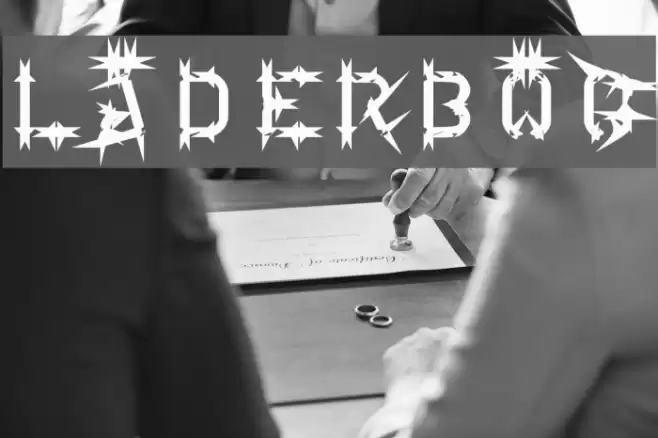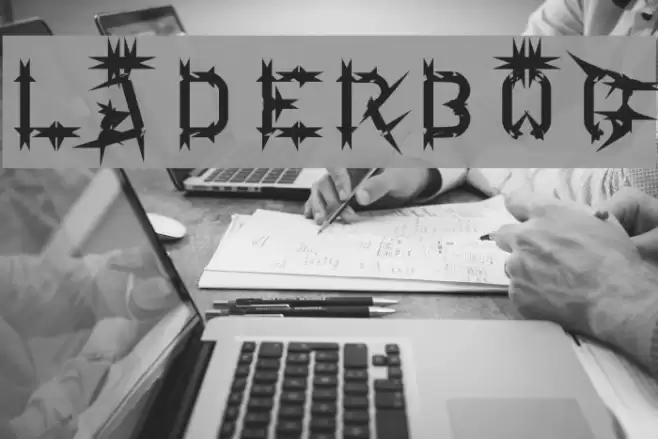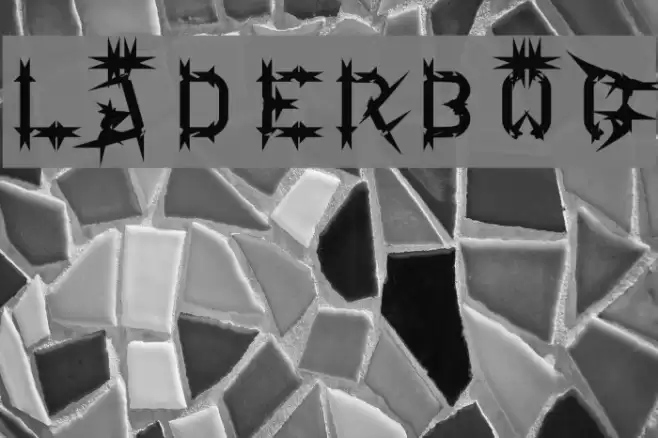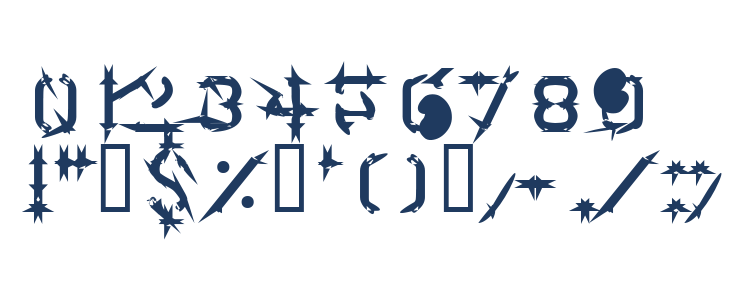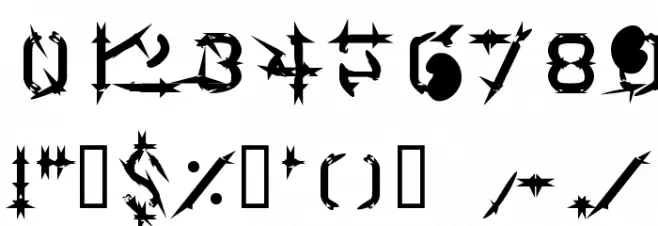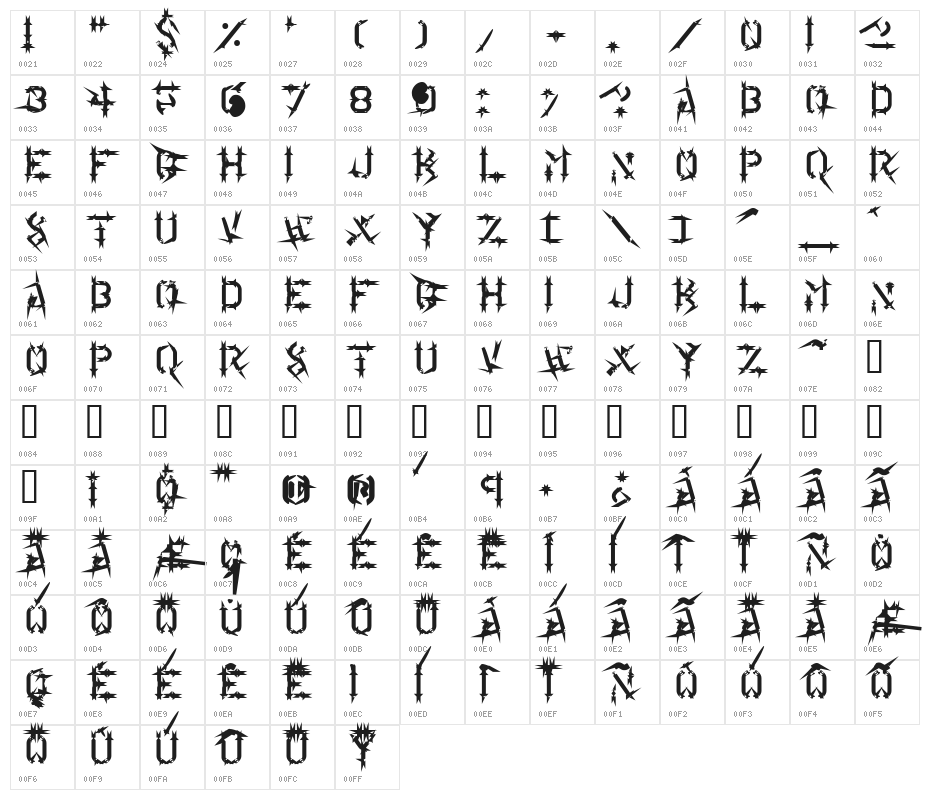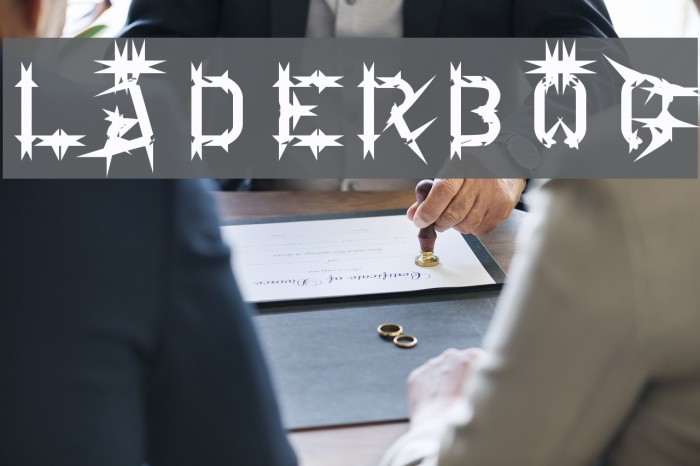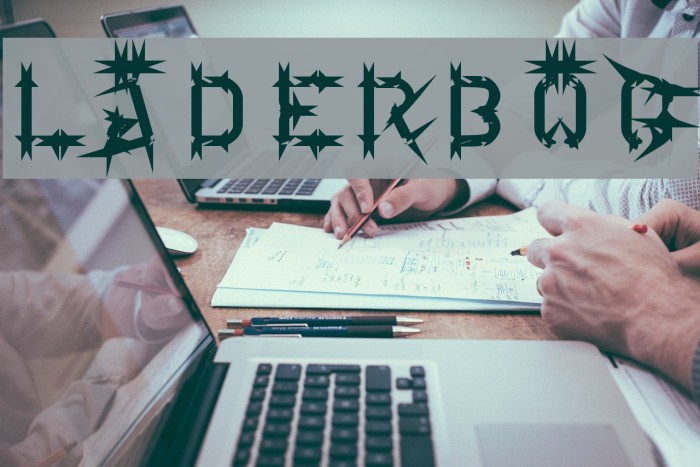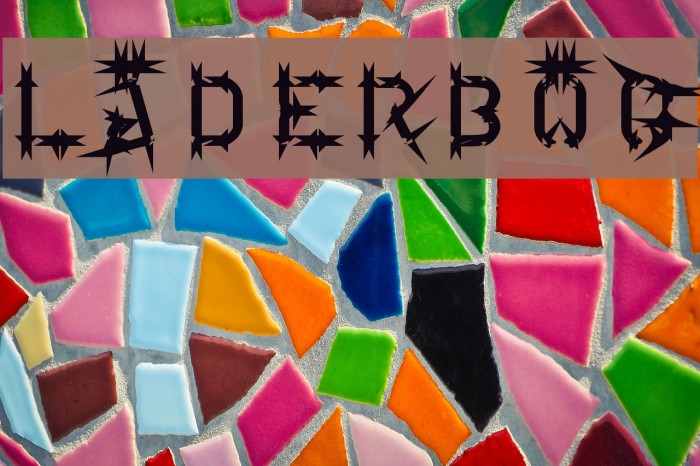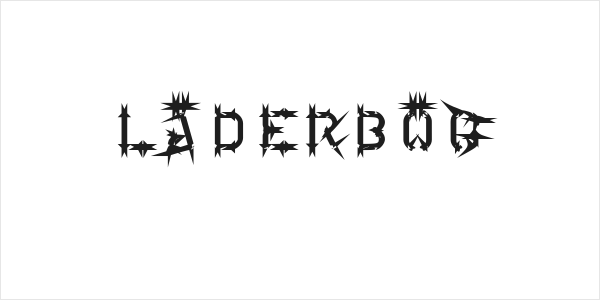
Läderbög Font
Läderbög Description
This font features a striking and edgy design, characterized by sharp, thorn-like extensions protruding from each character. The letters are bold and angular, giving off a rebellious and intense vibe. The unique style is reminiscent of barbed wire, making it perfect for projects that require a dramatic and eye-catching typeface. The uppercase and lowercase letters maintain a consistent theme, while the numbers and special characters follow suit with the same jagged aesthetic. This font is ideal for creating impactful headlines, posters, or album covers that demand attention.
An edgy, thorn-inspired font with a bold and dramatic style from Broken fonts.
- Proposed Projects: Ideal for music album covers, edgy posters, or branding for extreme sports.
- Overall Style: Modern, Edgy
- Use Case: Headlines, Posters, Branding